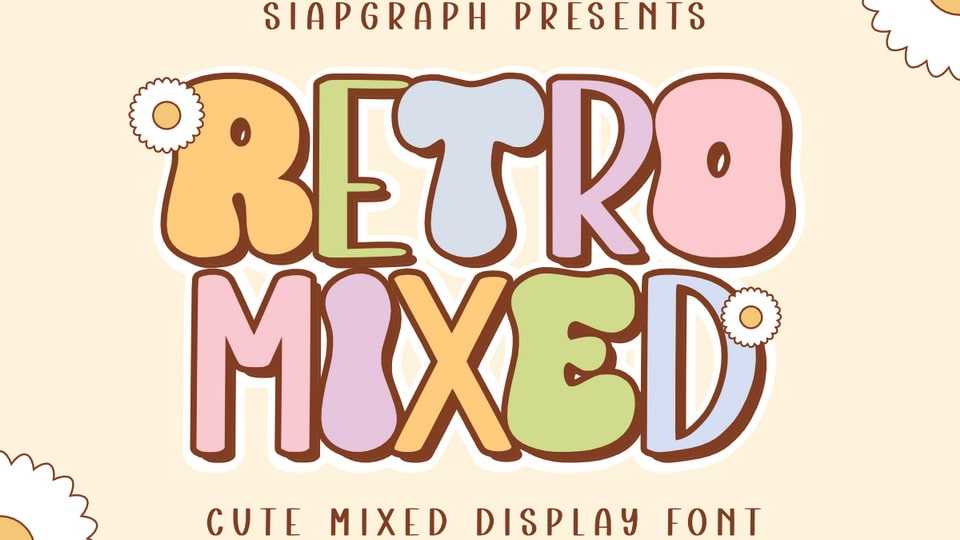
Download Retro Mixed font, a charming and playful display typeface that brings a delightful blend of retro vibes and modern cuteness to your designs.